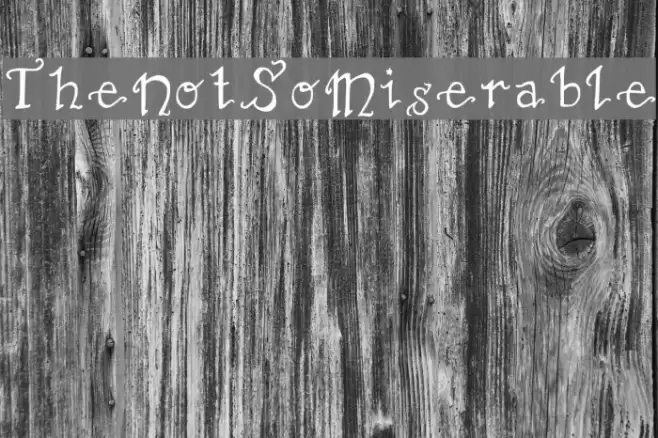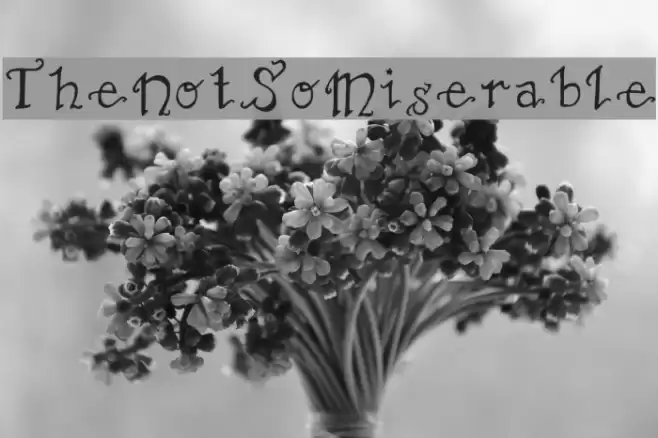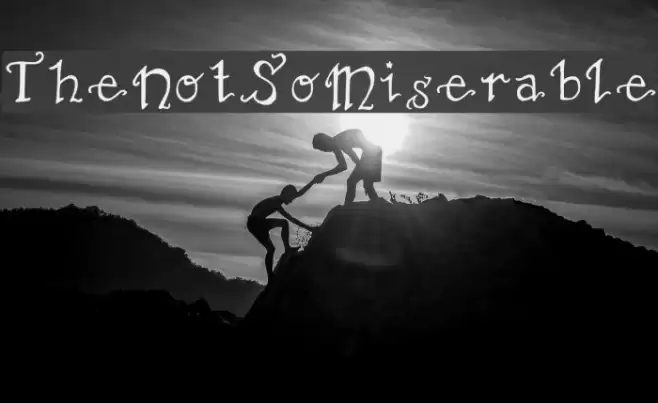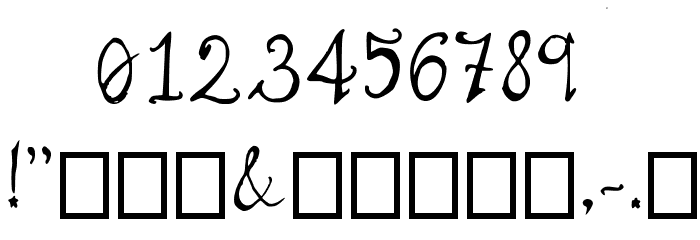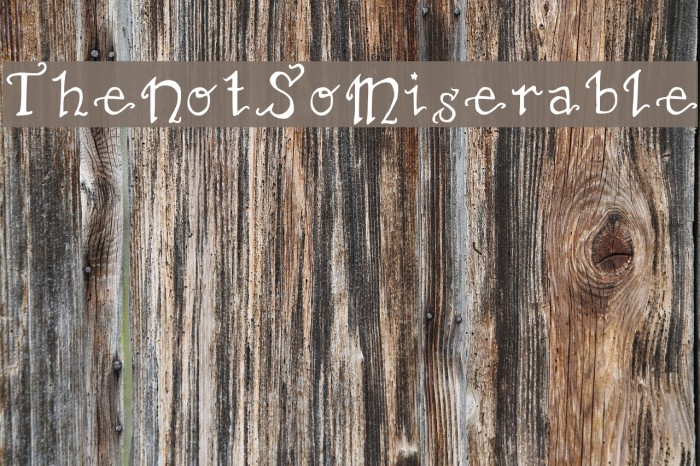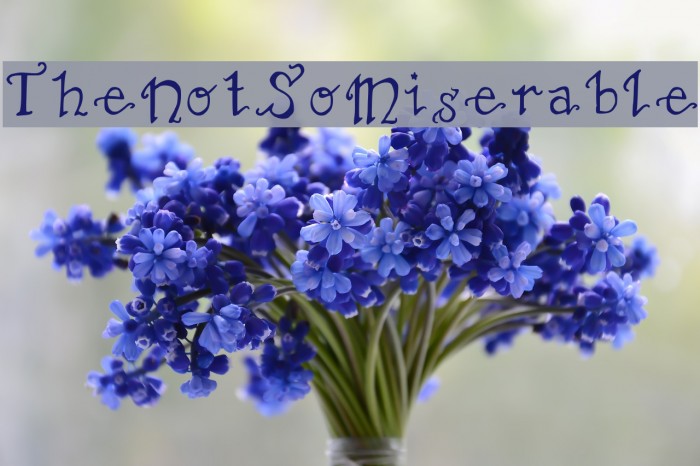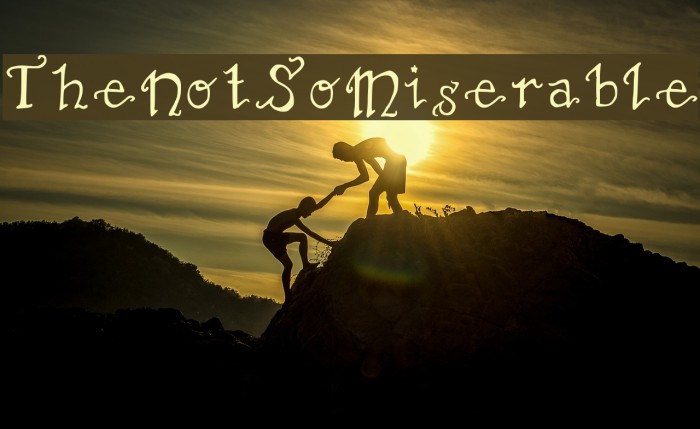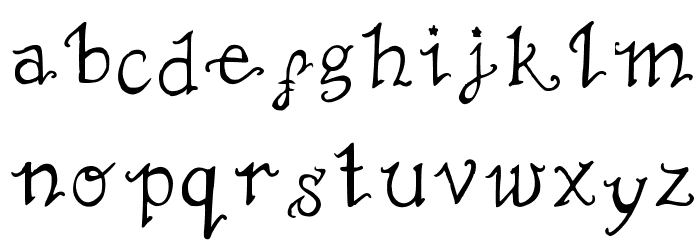
TheNotSoMiserable Font
TheNotSoMiserable Description
This font features a whimsical and playful design, characterized by its decorative and curly elements. Each letter has unique flourishes and swirls, giving it a hand-drawn, artistic feel. The uppercase letters are bold and ornate, while the lowercase letters maintain a consistent style with a slightly more subdued flair. The numbers follow the same decorative theme, ensuring a cohesive look across all characters. The special characters are creatively integrated, adding to the font's overall charm. This font is perfect for projects that require a touch of elegance and creativity.
A whimsical and decorative font with playful curls and flourishes from Uncategorized fonts.
- Proposed Projects: Ideal for invitations, greeting cards, artistic posters, and branding that requires a creative touch.
- Use Case: Headlines, Artistic designs, Invitations